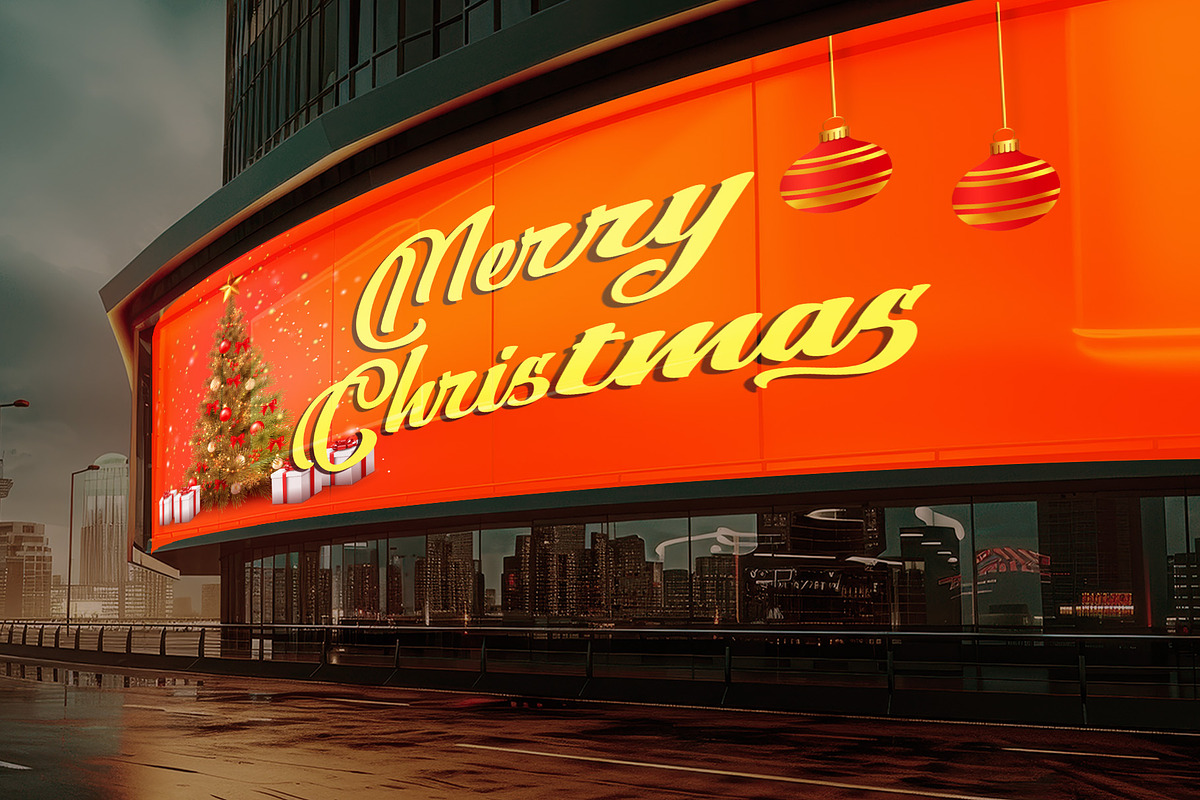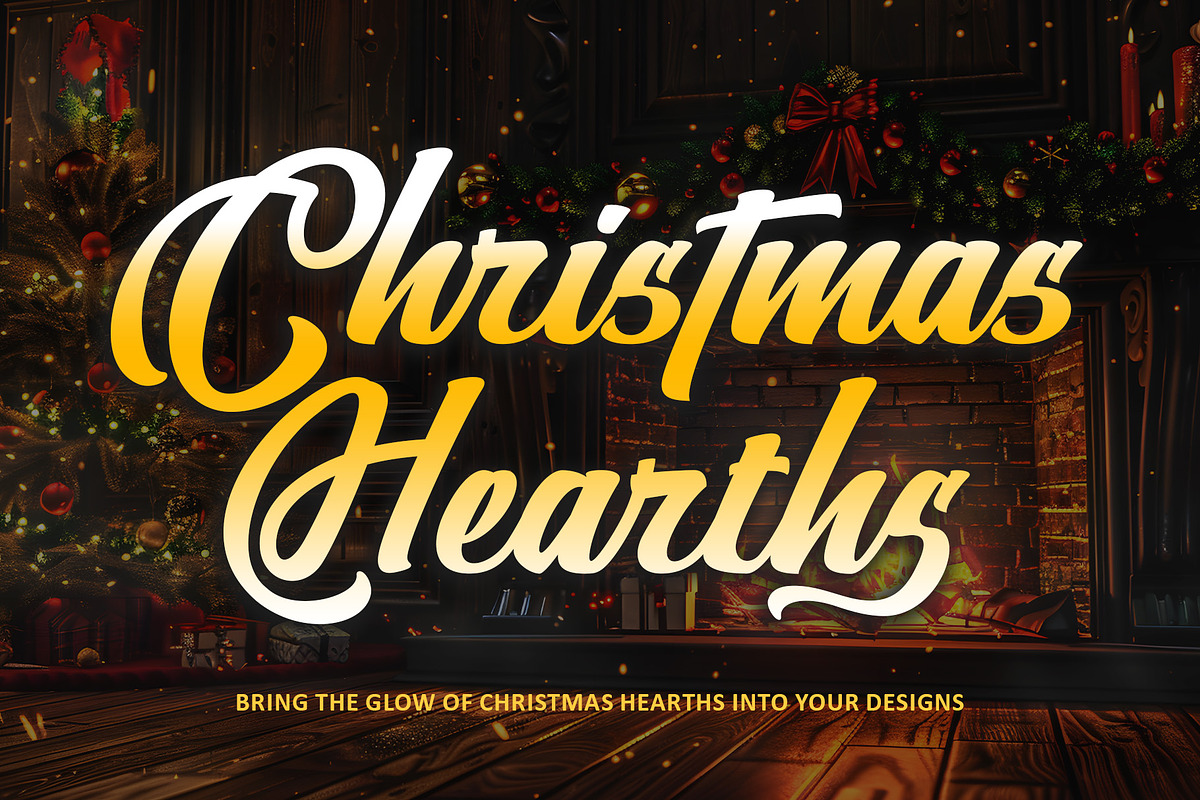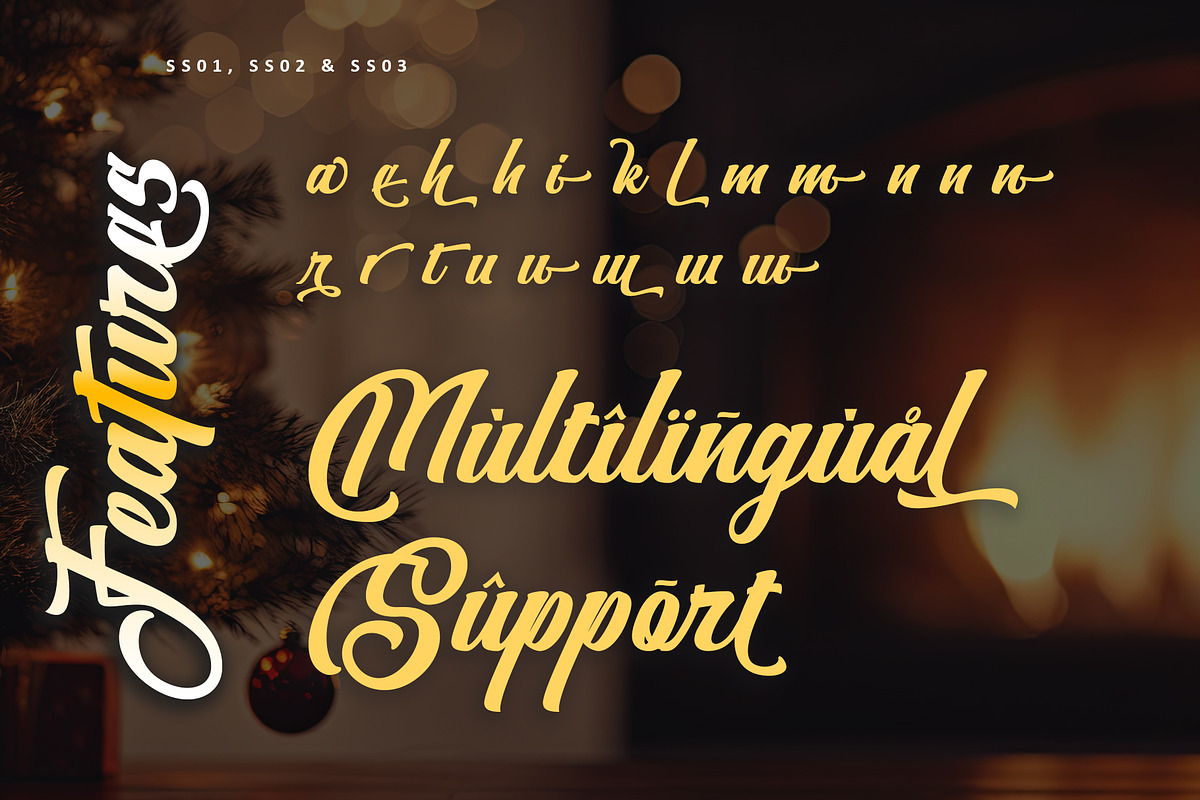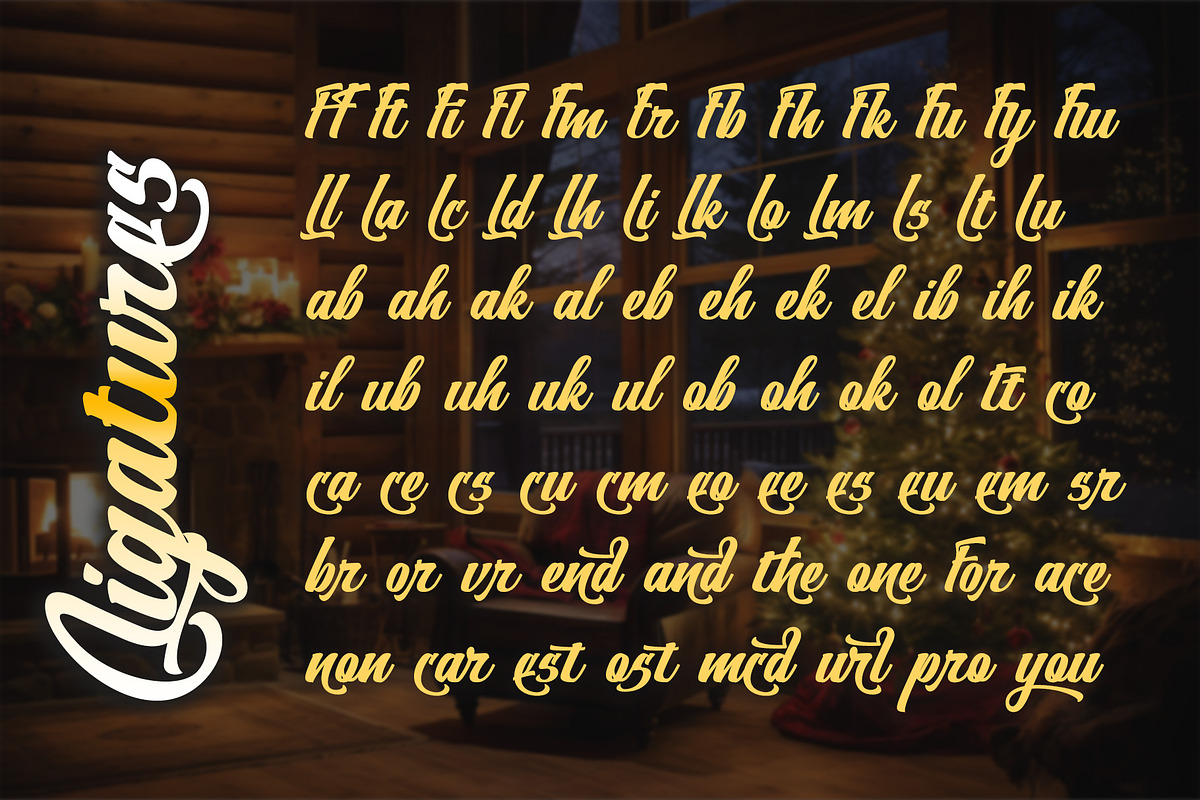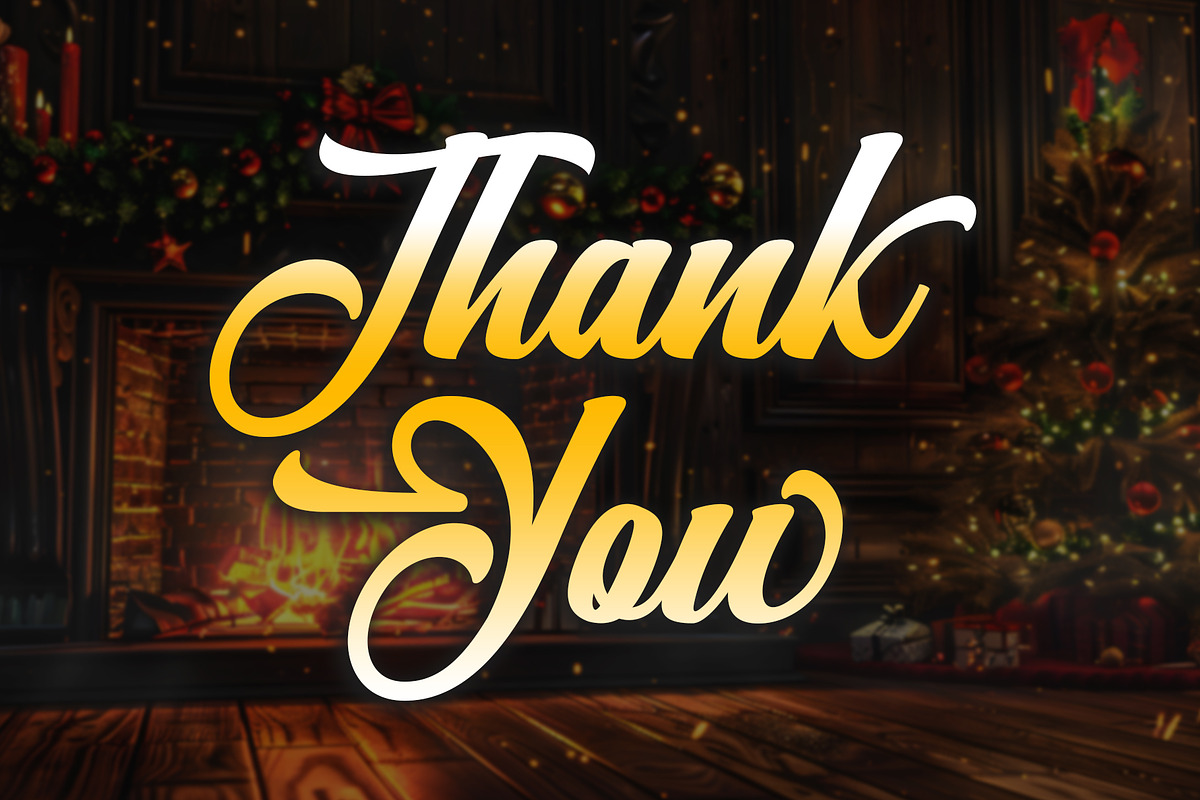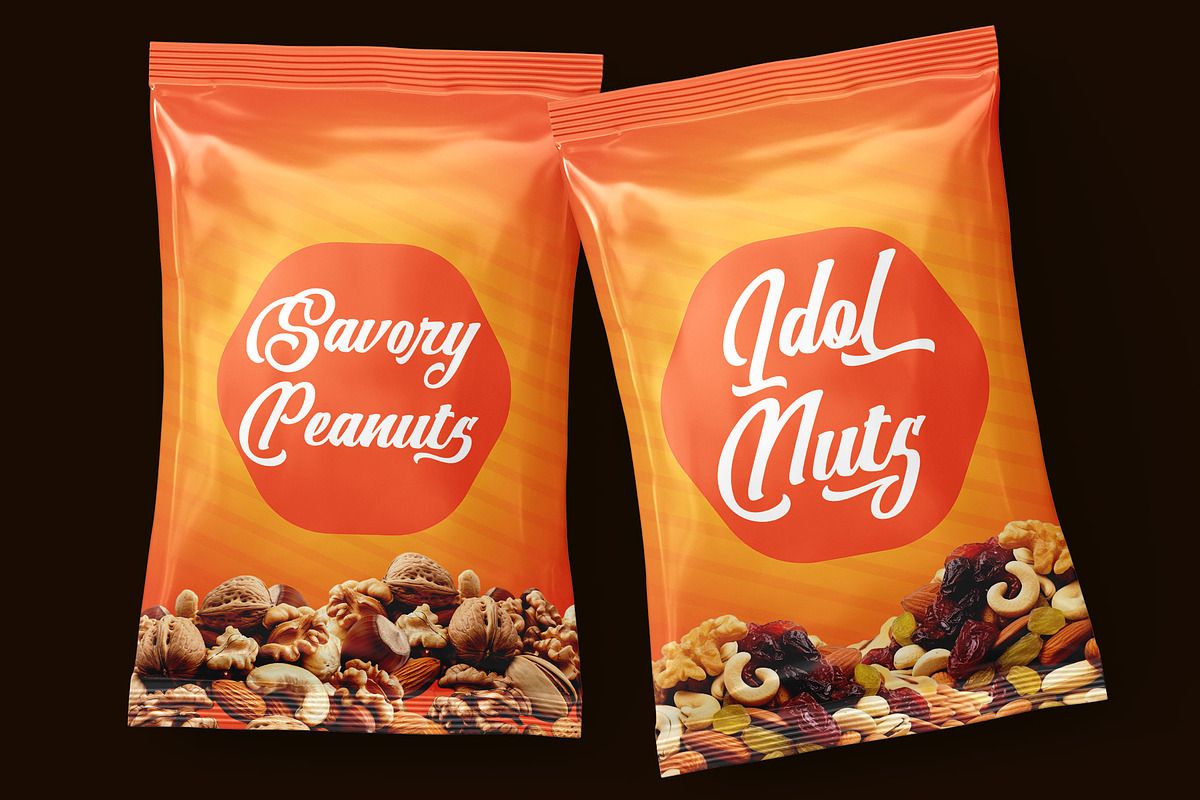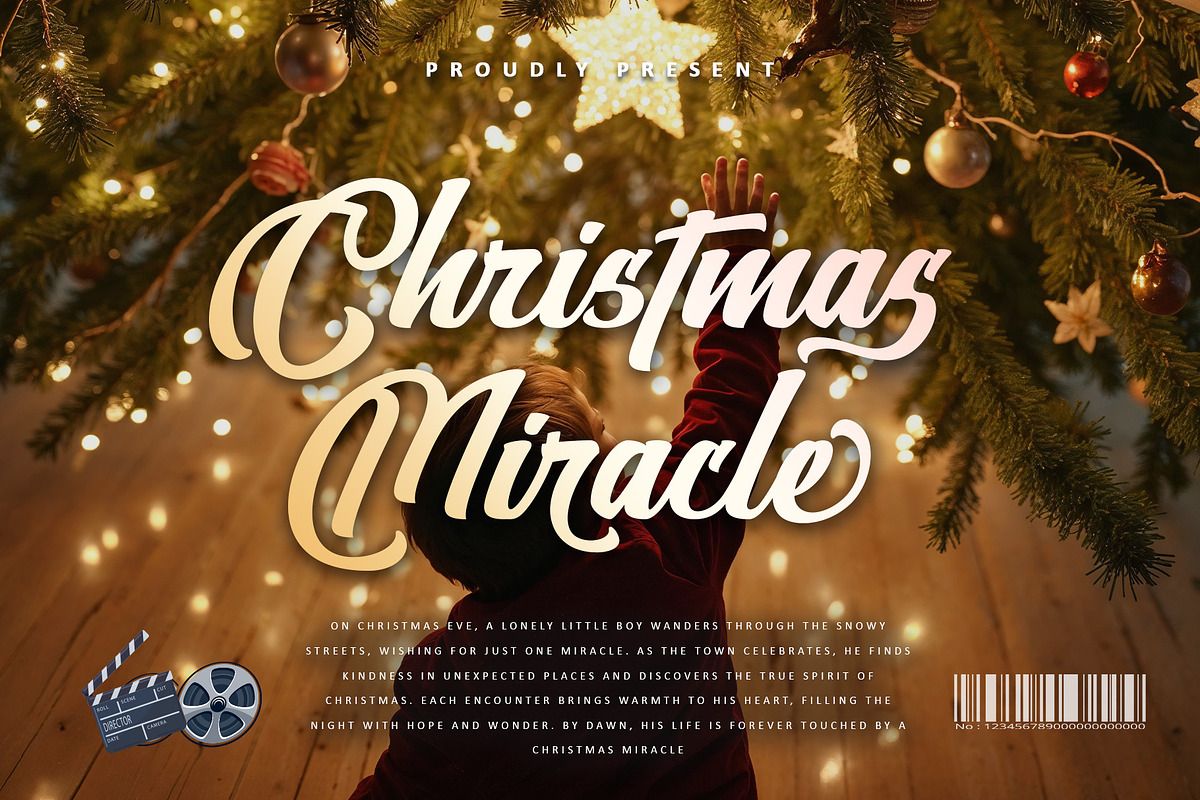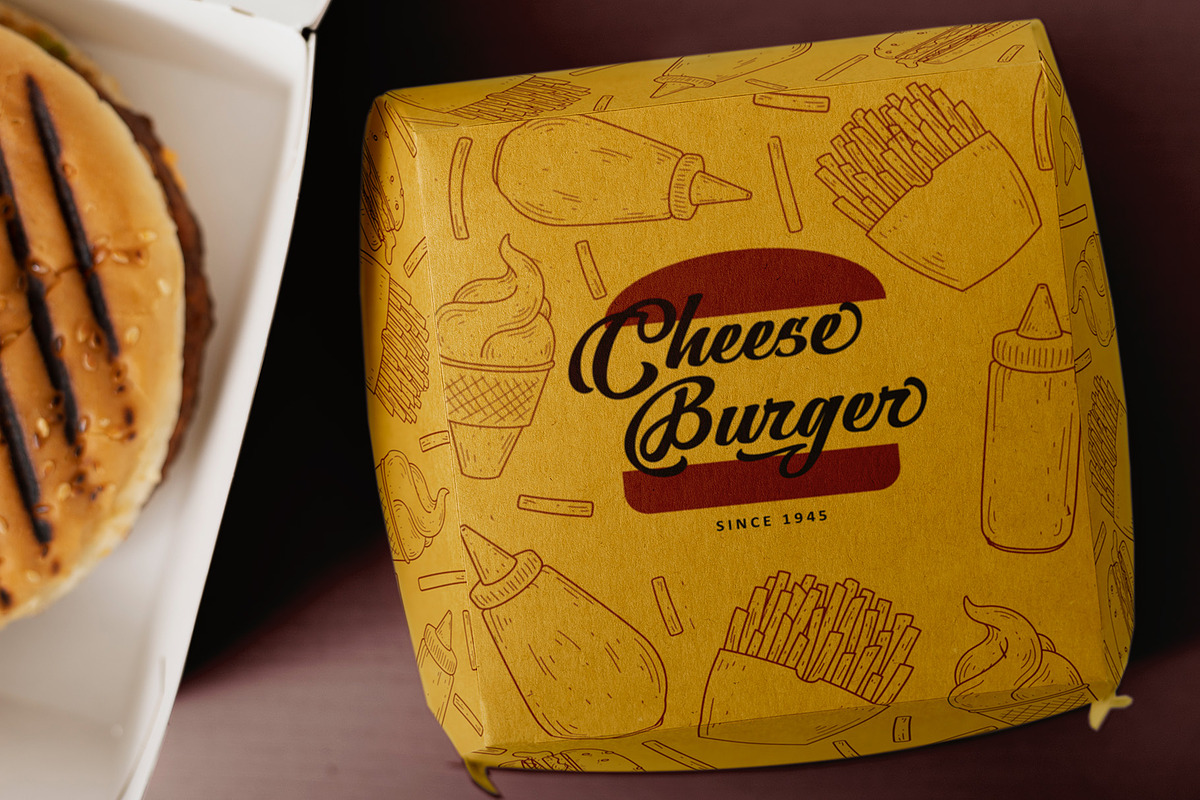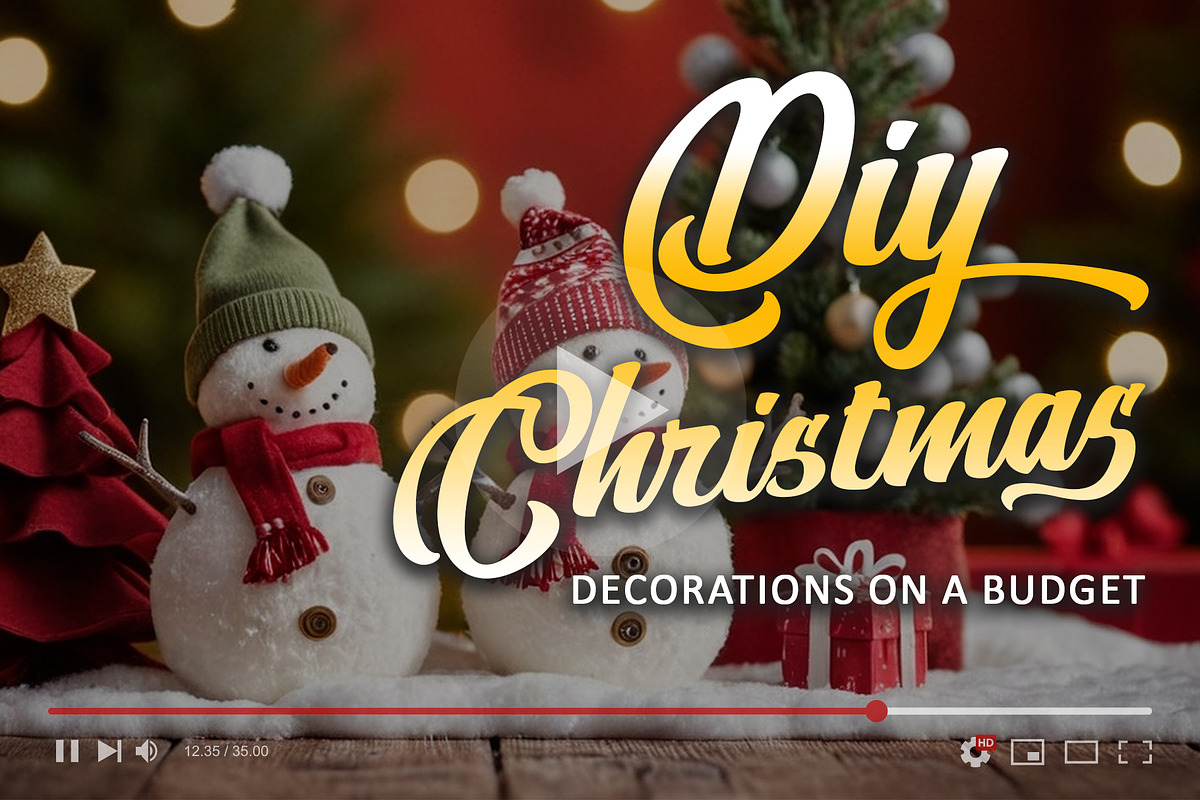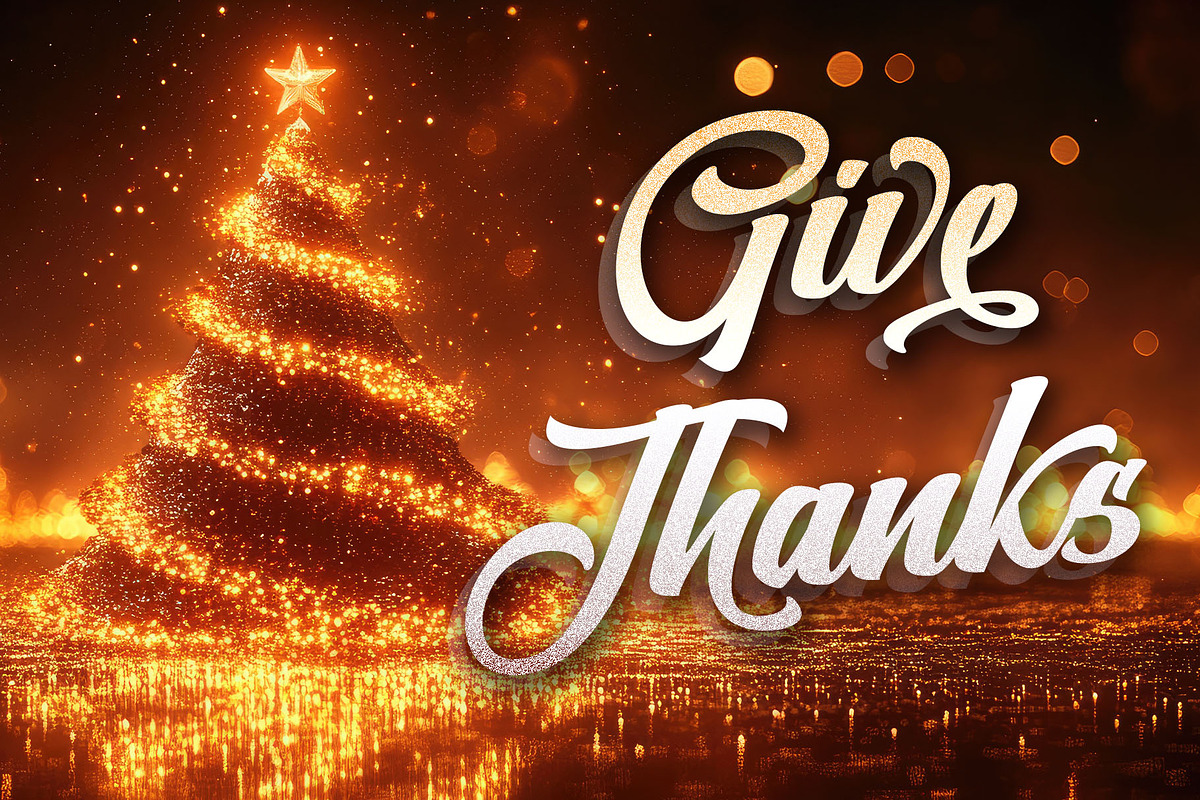
Christmas Hearths – Christmas Script
Introducing Christmas Hearths, a bold script font that glows with festive elegance and timeless charm. Designed with flowing strokes and a touch of modern flair, this font captures the cozy spirit of Christmas while remaining versatile for countless creative uses. Perfect for logos, posters, packaging, and seasonal branding, Christmas Hearths adds warmth and sophistication to any design. With full PUA encoding, you can effortlessly explore its stylish glyphs, alternates, and swashes—bringing your projects to life with the magic of Christmas.
- Support multilingual; ä ö ü Ä Ö Ü ß ¿ ¡
- lowercase and uppercase letters
- Alternate, swash, titling, ss01, ss02, ss03 & ligature